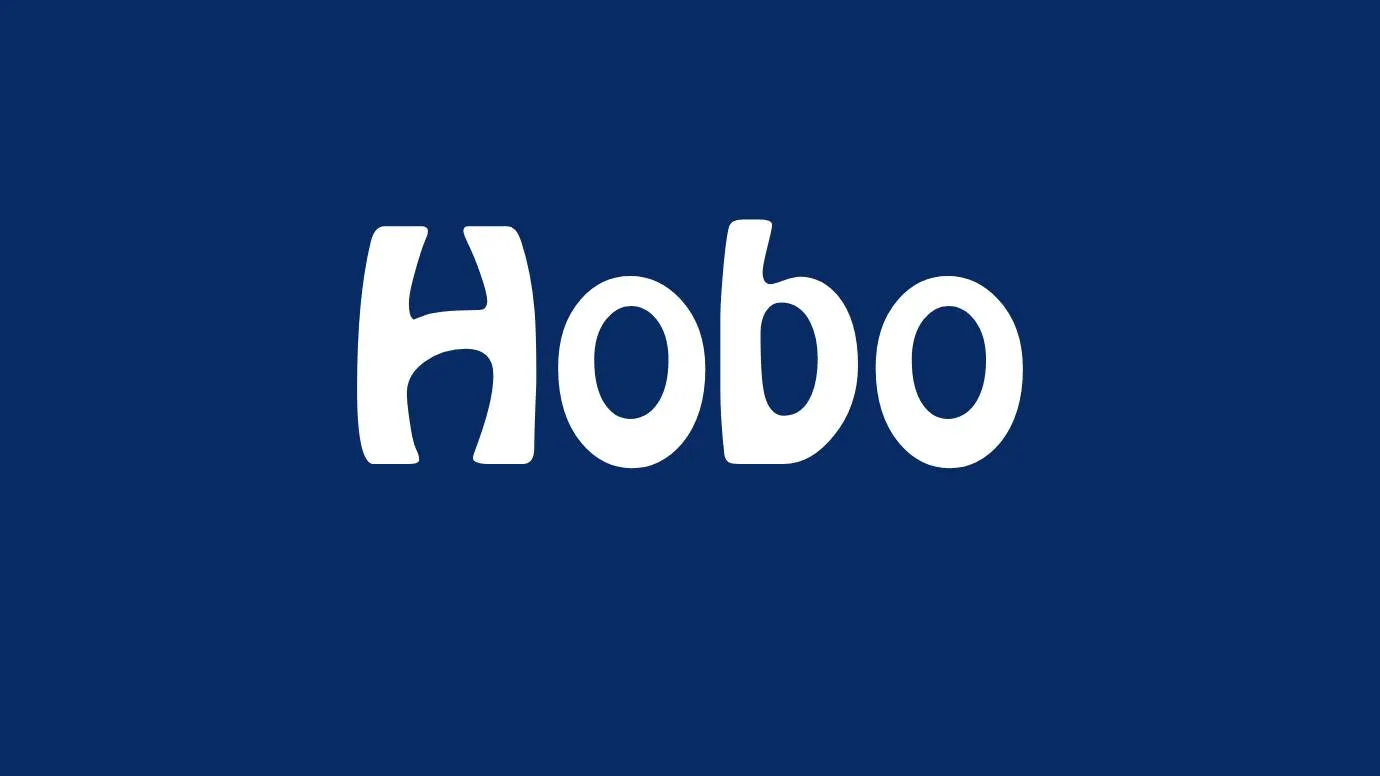
Hobo Font Family that is the basic sans-serif typeface. This font was released in the year of 1910 by famous font foundry American Type Founders and the designing of this has been done by Morris Fuller Benton.
The styling of this font characters is totally unique from others as in them you will find no descenders or any of the straight lines and this styling work well with courier font and there is also a light version of this font available known as Light Hobo.